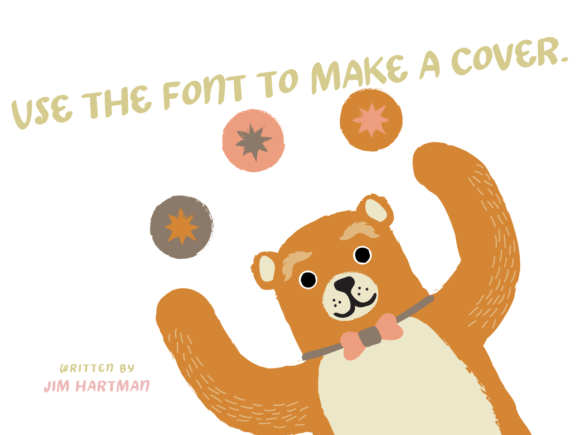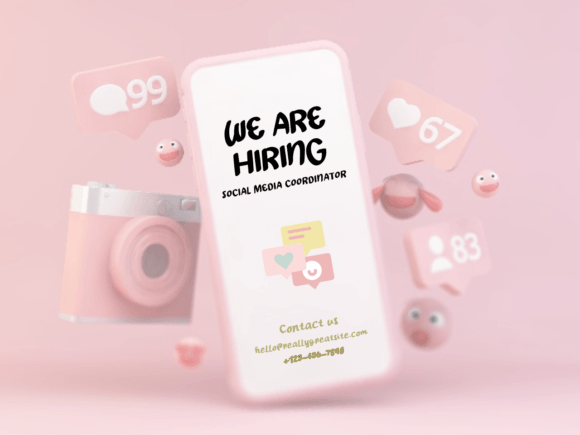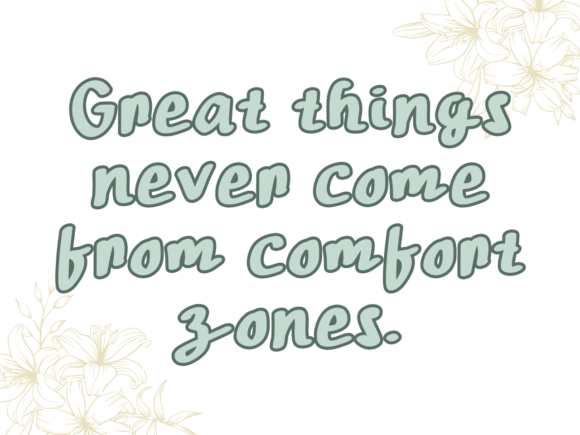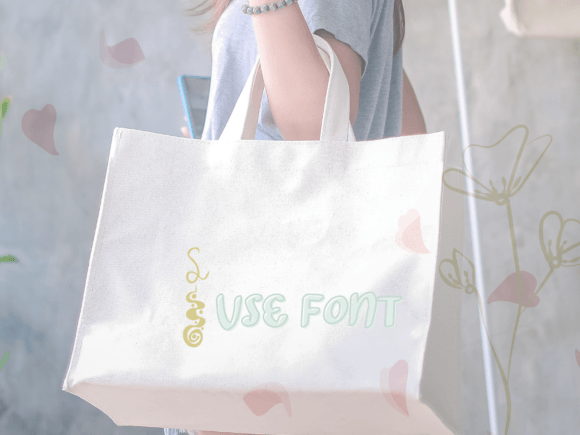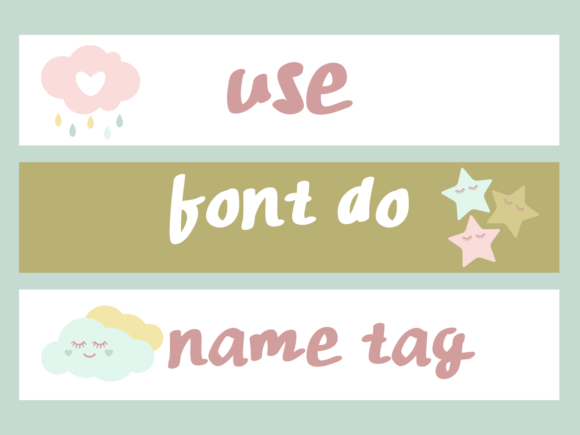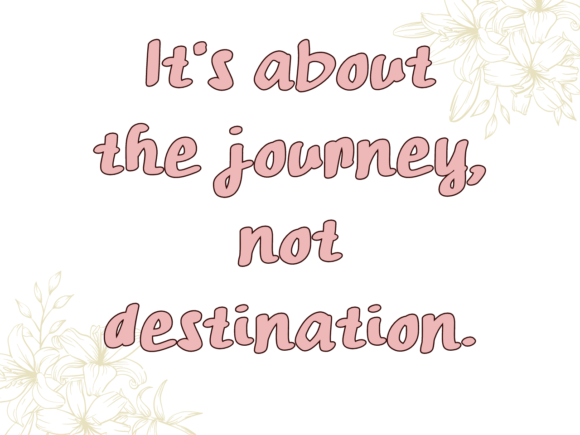
The Sweet Spot: Discovering Cruz Font
I still remember the design project that led me to Cruz Font. I was working on a whimsical branding project for a new bakery, and I was struggling to find the perfect handwritten font that would capture the warmth and friendliness of their brand. The client wanted something that felt approachable, yet unique. After hours of scouring font libraries, I stumbled upon Cruz Font, and it was love at first sight! ✨
An Honest Review of Cruz Font
So, what makes Cruz Font so special? Let’s dive into the good stuff and a few quirks I’ve discovered.
- ✨ Unique yet approachable style: Cruz Font has a natural, handwritten feel that sets it apart from more generic fonts.
- ✅ Highly versatile: From branding and packaging to invitations and social media graphics, Cruz Font adapts seamlessly.
- 💕 Emotional connection: The font’s friendly vibe helps create an instant emotional connection with your audience.
While Cruz Font is incredibly versatile, there are a few things to keep in mind:
- ⚠️ Legibility at small sizes: Like many handwritten fonts, Cruz Font can get a bit fuzzy at very small sizes (below 10pt). Use it at larger sizes for optimal impact.
- 🤔 Glyph limitations: While Cruz Font has a great range of characters, it might not have every special character or glyph you need. Check the font specs before committing to a project.
The Story Behind Cruz Font
Cruz Font was designed with the intention of capturing the warmth and friendliness of handwritten communication. Its creator aimed to craft a font that felt both personal and versatile, suitable for a wide range of creative projects. While the exact story behind Cruz Font might be fictional, its impact on designers and crafters is very real.
Q: Is Cruz Font suitable for body text?
A: While Cruz Font is beautiful, it’s best used for headings and short paragraphs due to its handwritten nature. For longer body text, consider a more traditional font.
Q: Does Cruz Font support OpenType features?
A: Yes, Cruz Font includes OpenType features like ligatures and stylistic alternates. Experiment with these in compatible software like Adobe Photoshop/Illustrator for added typographic control.
| Font Name | Cruz Font |
| Author | Pukka De |